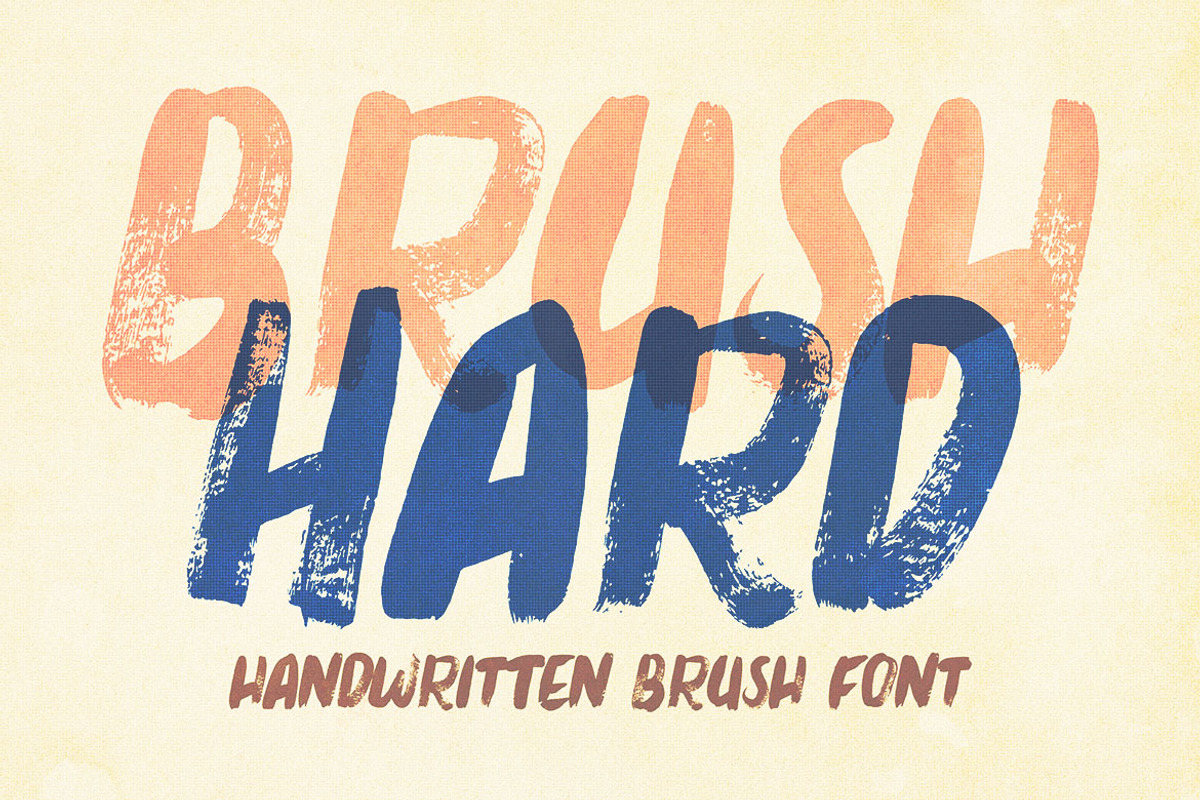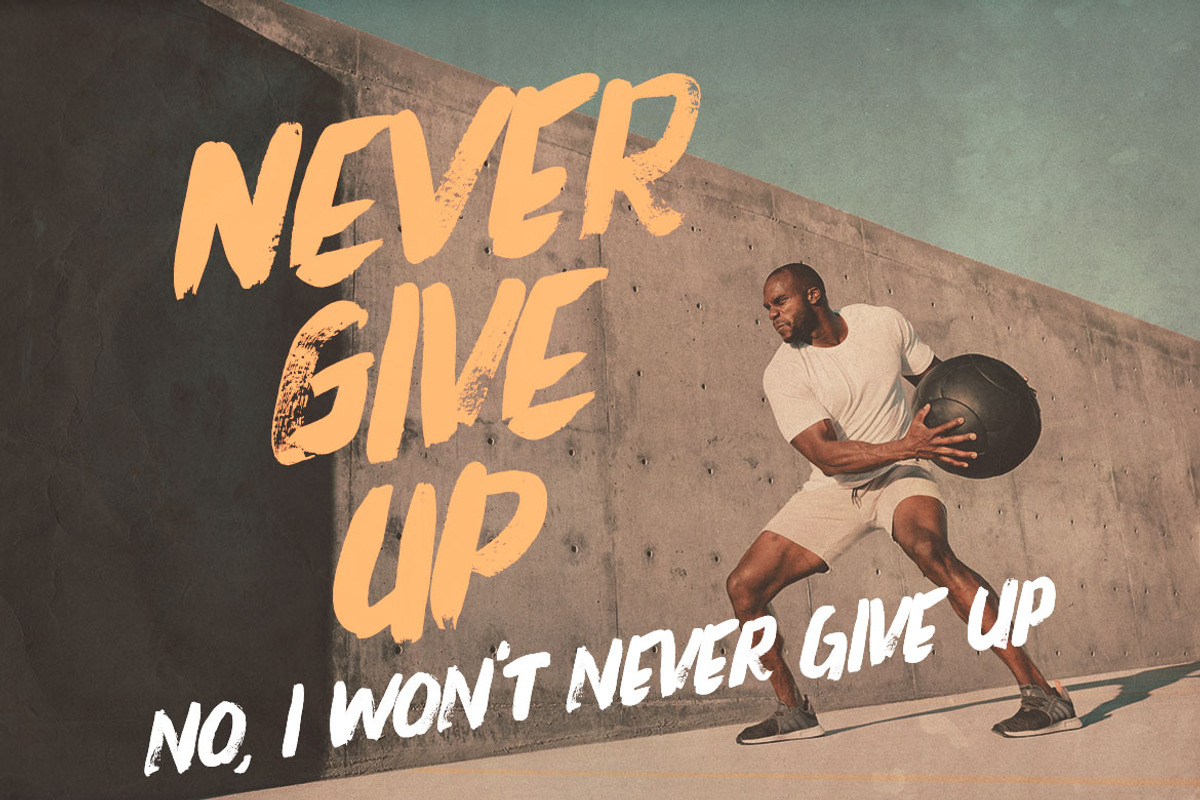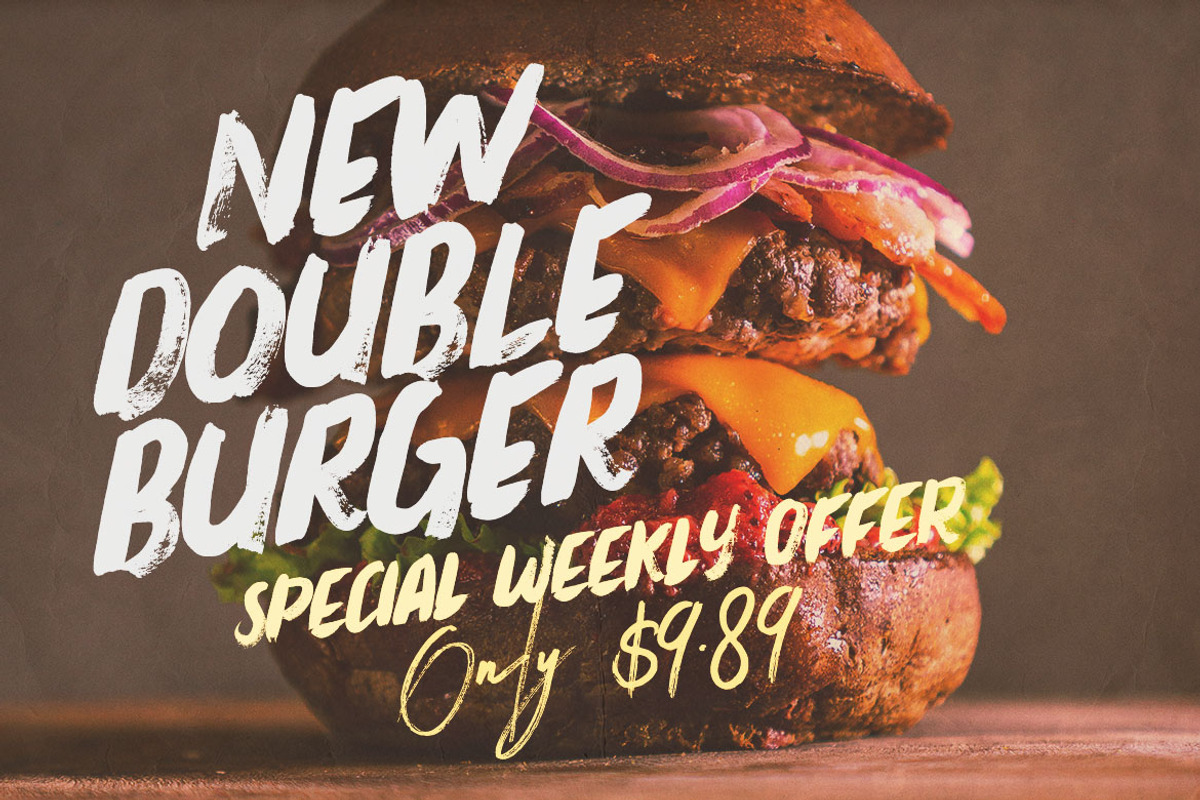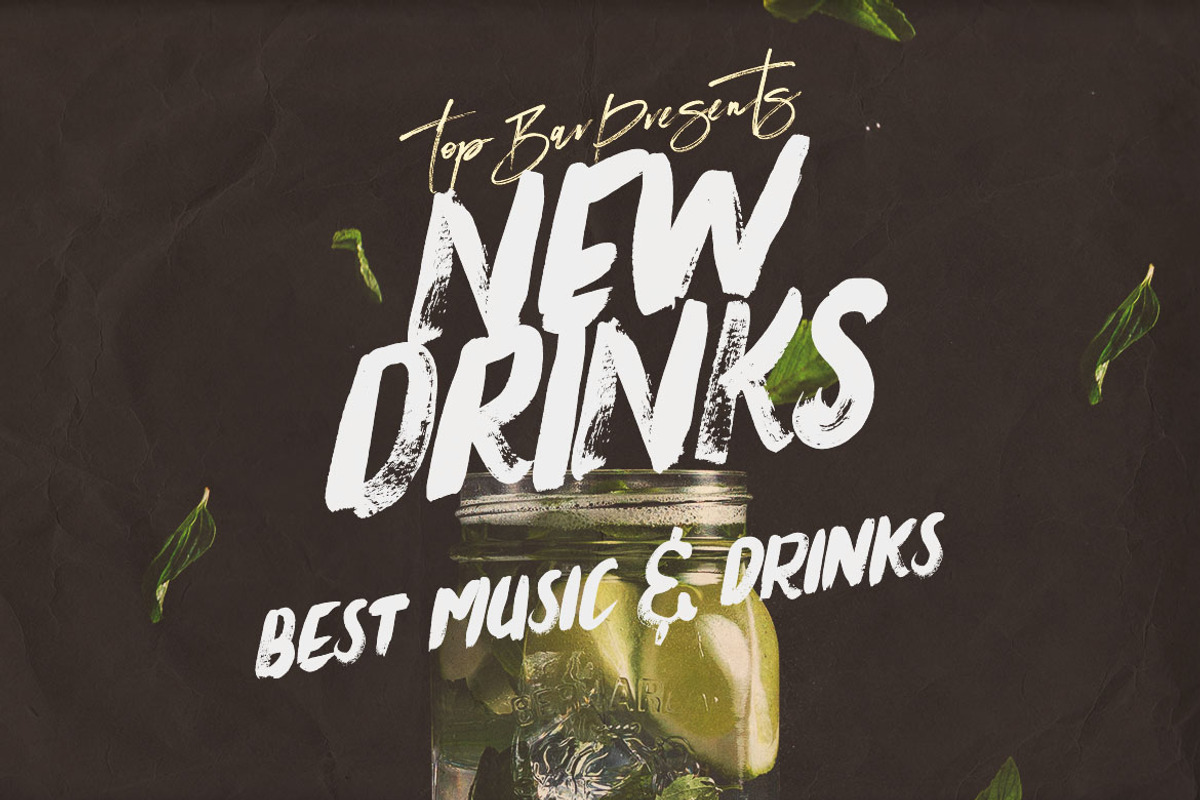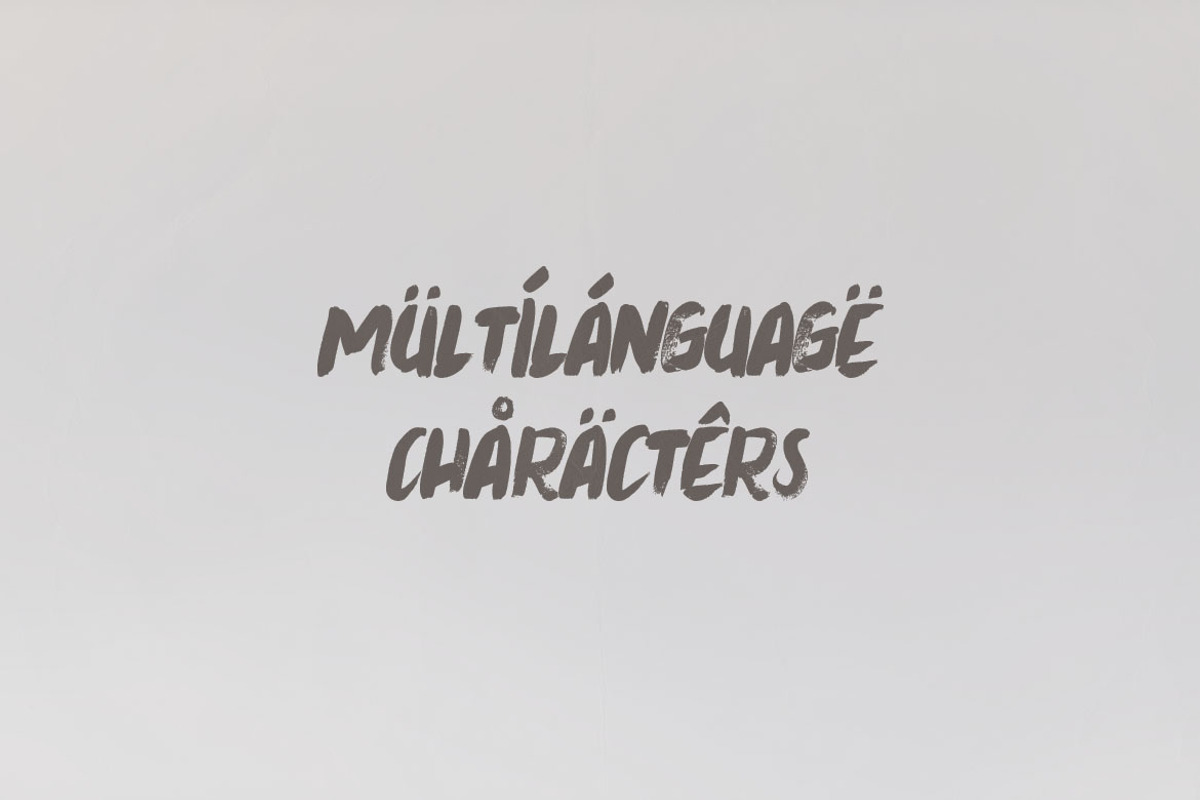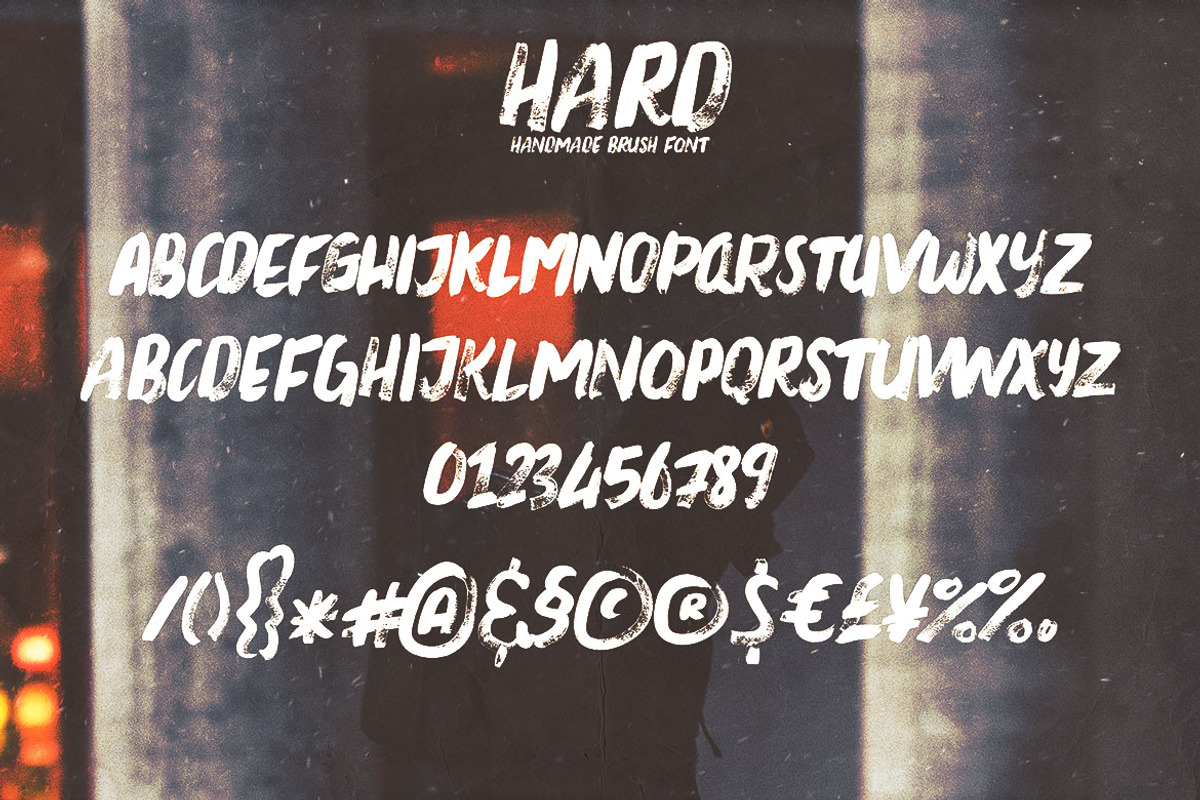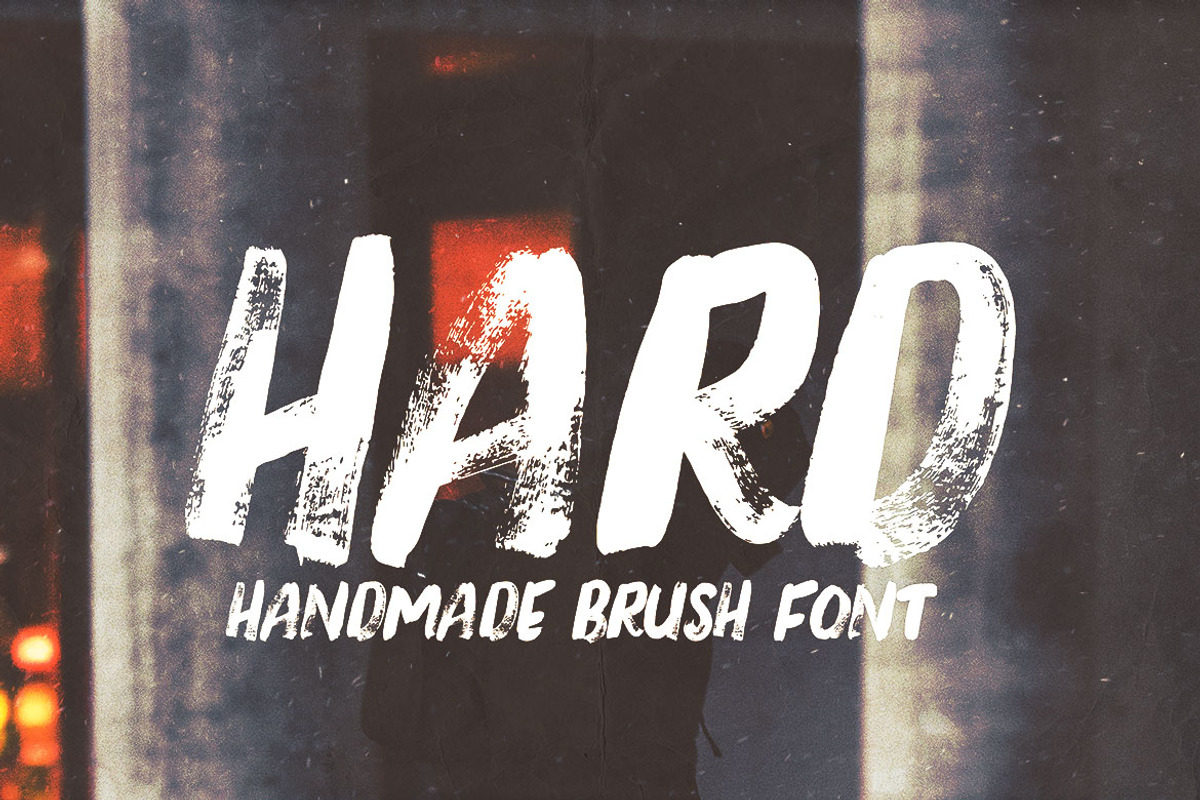
Brush Hard - Handwritten Font
Handwritten, brush & grunge style sans display font for your new projects. Great for grunge or artistic projects!
- multilanguage support